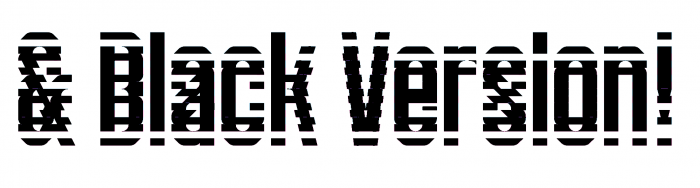
Accepting @lucapri's suggestion, here is zoubizz... now with lowercase!
Non-optical-illusion version? (trying to) Scanning through your stunning work, I can see that this would work well on its own without the optical illusion effects on top of it.
@anonymous-2100581 Well if you are on Windows, Windows doesn't really cares about color on the font files.
@LorDuFonts A majority of software support COLR color fonts, which is what Windows typically uses for their colored emoji font. Unfortunately, the Windows font previewer is one that does not support color fonts. It will appear as black no matter which color technology the font uses.